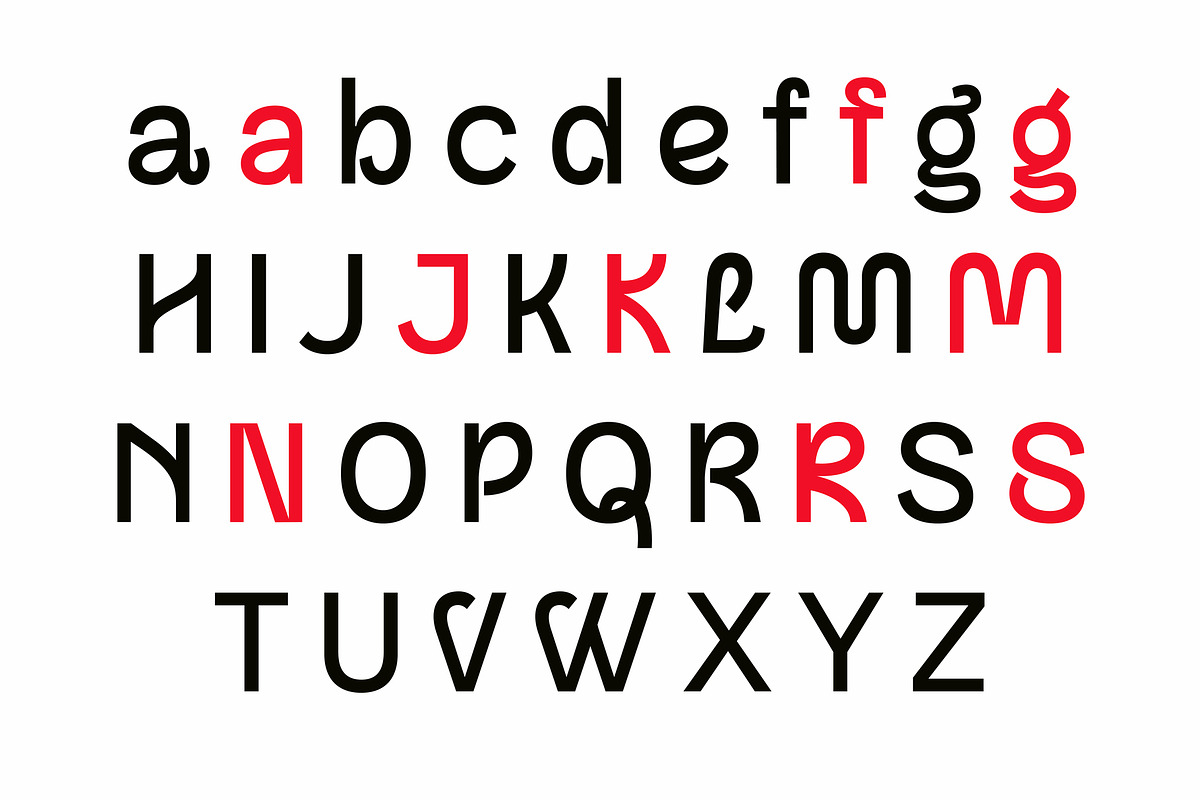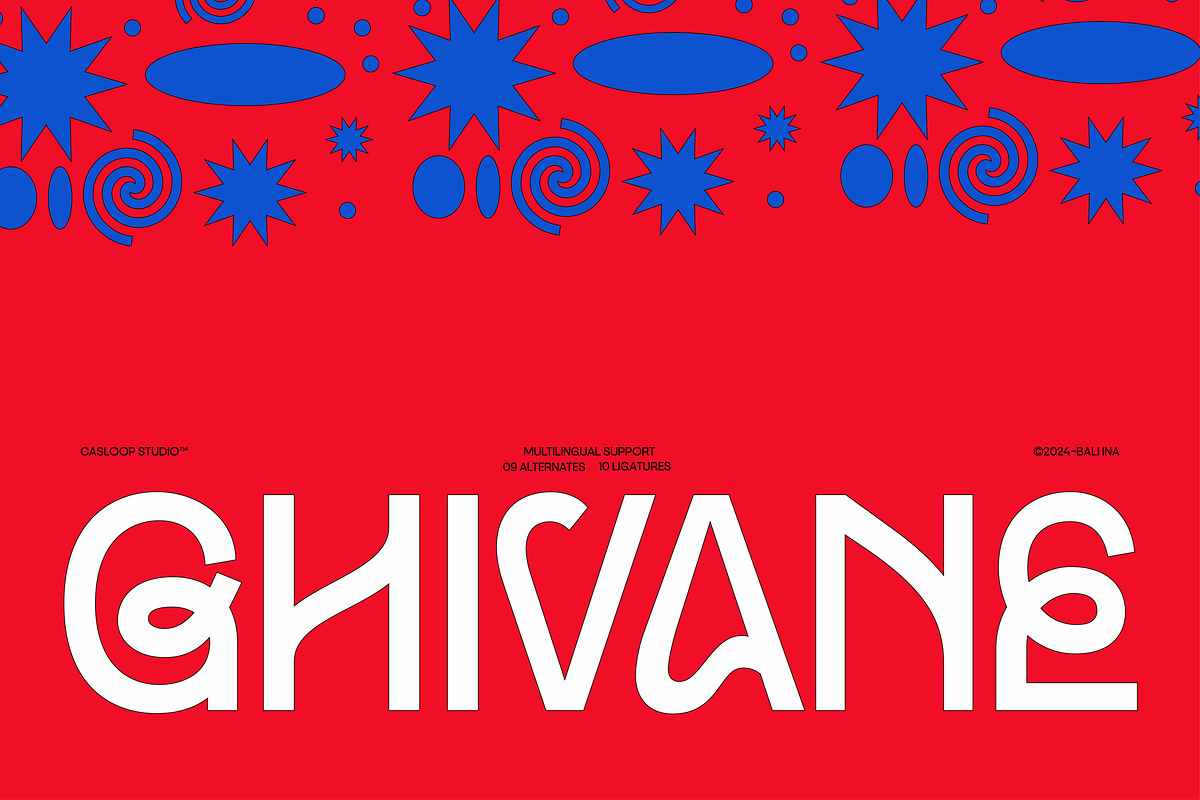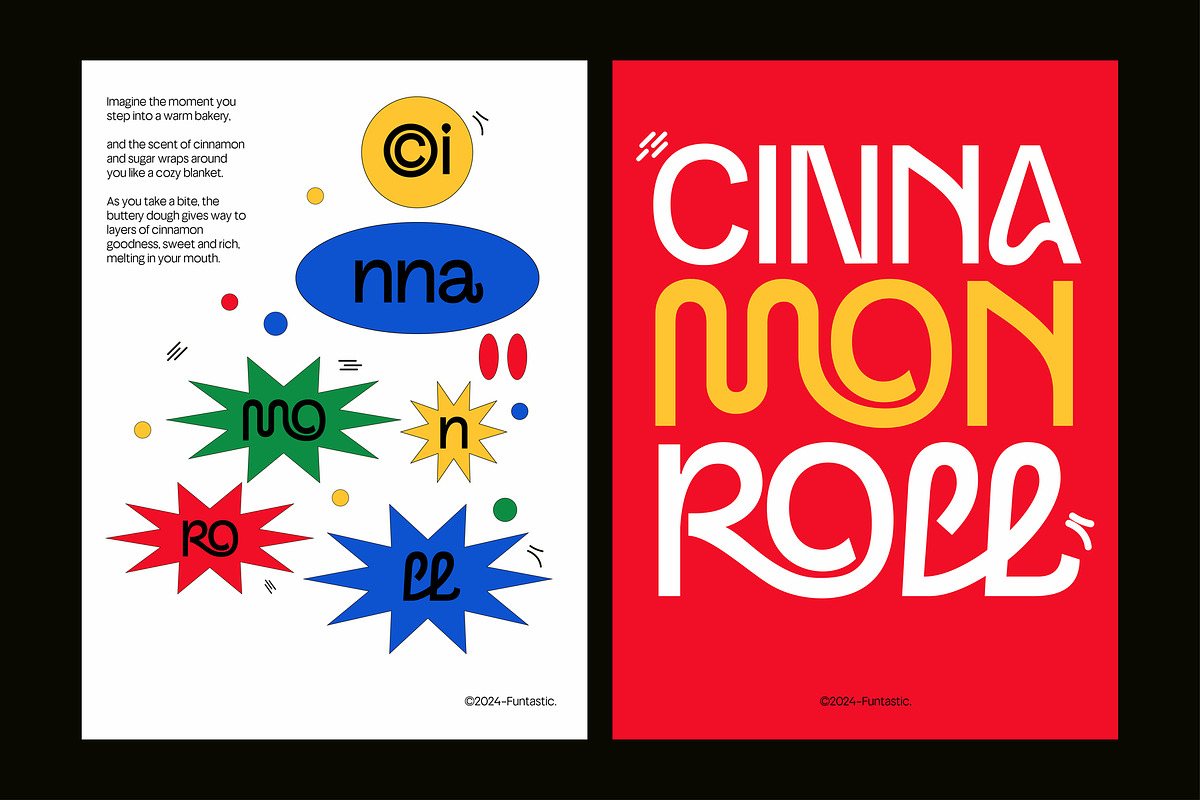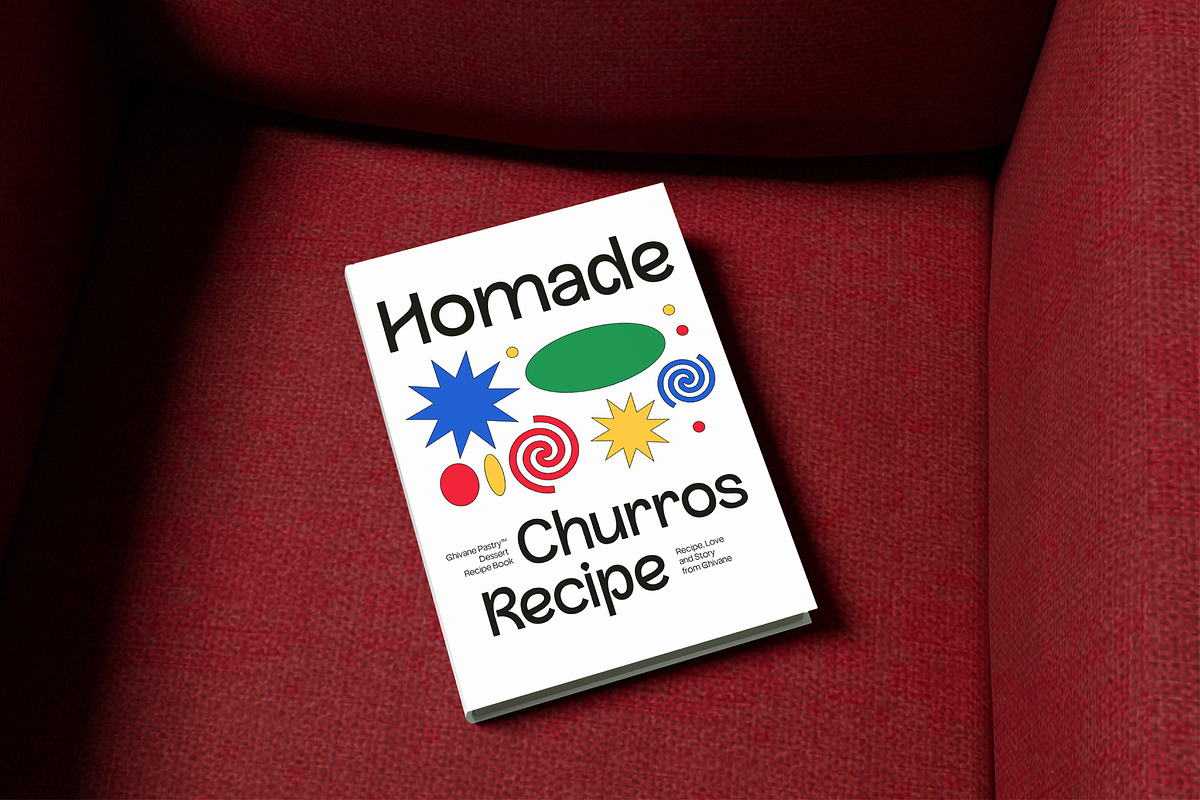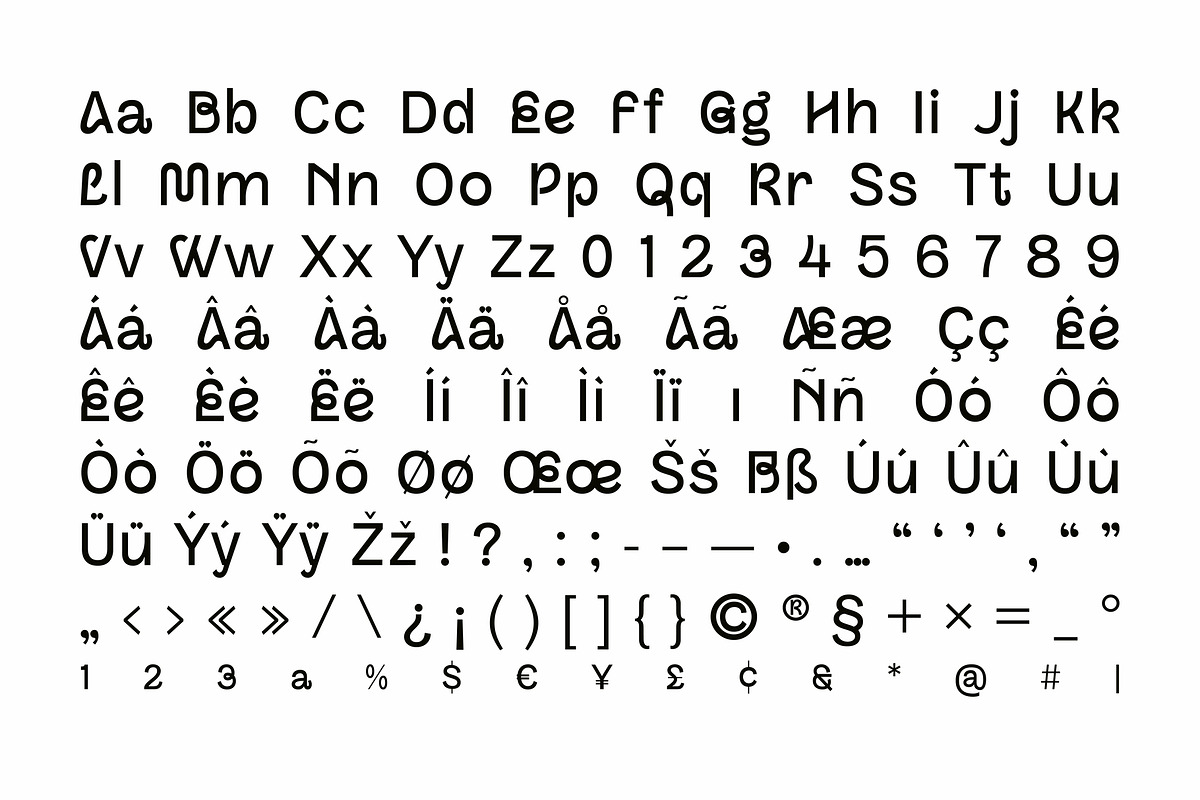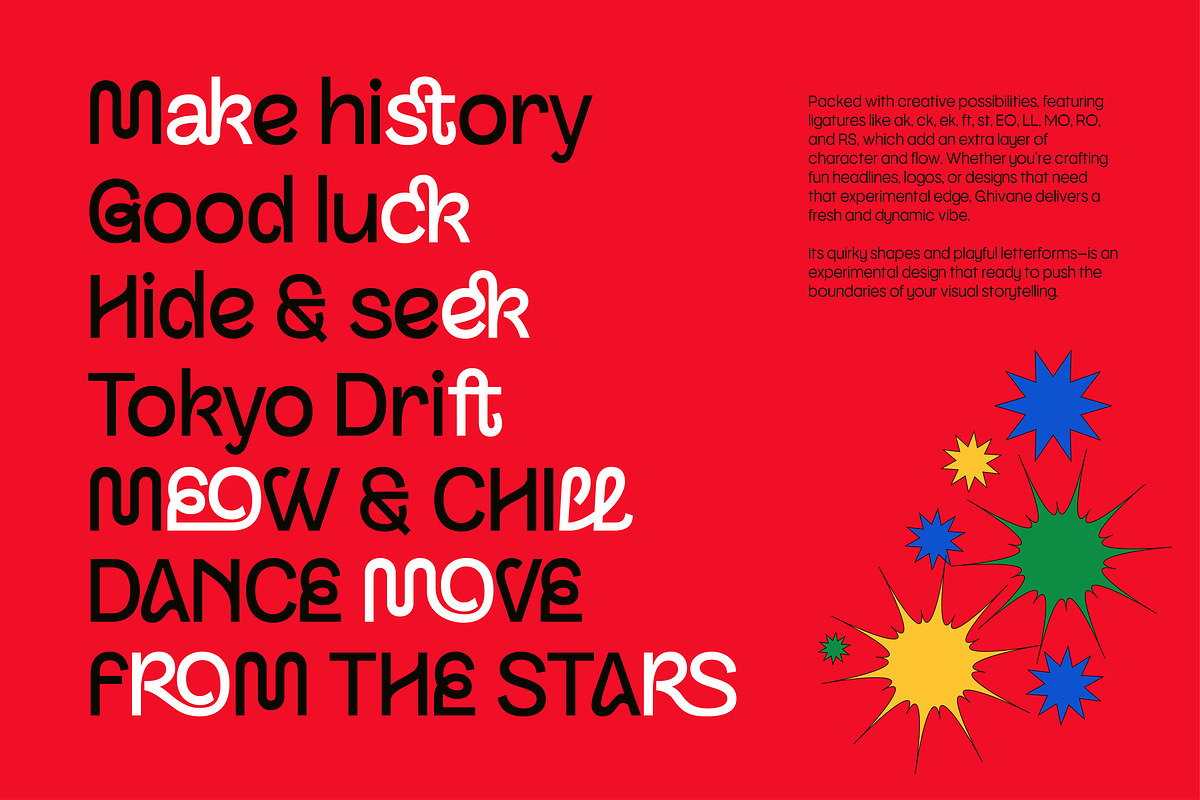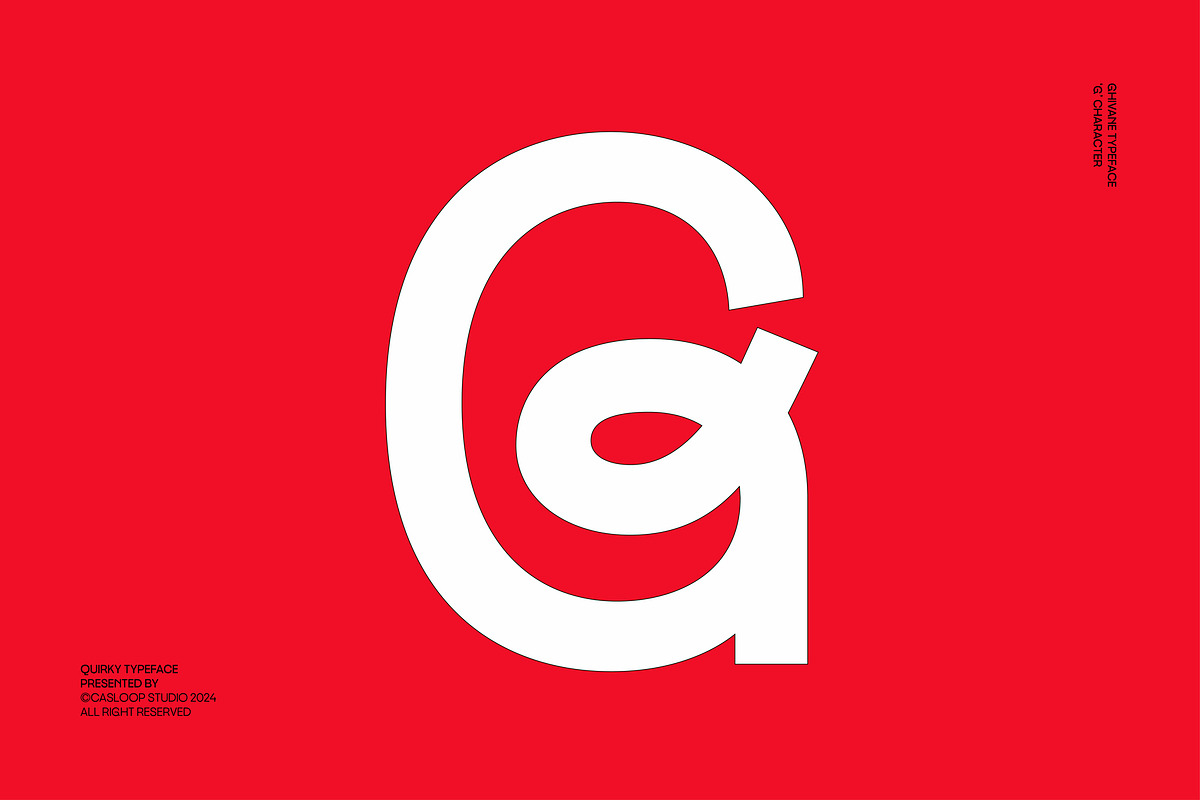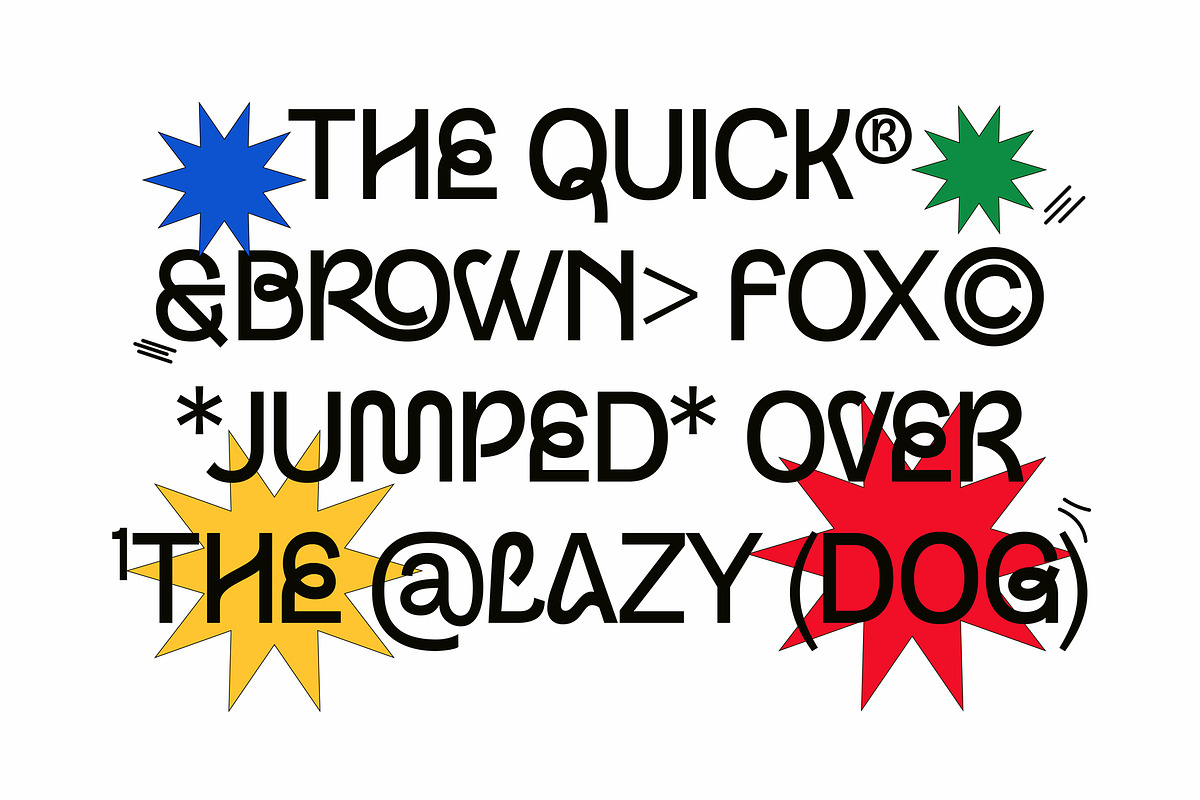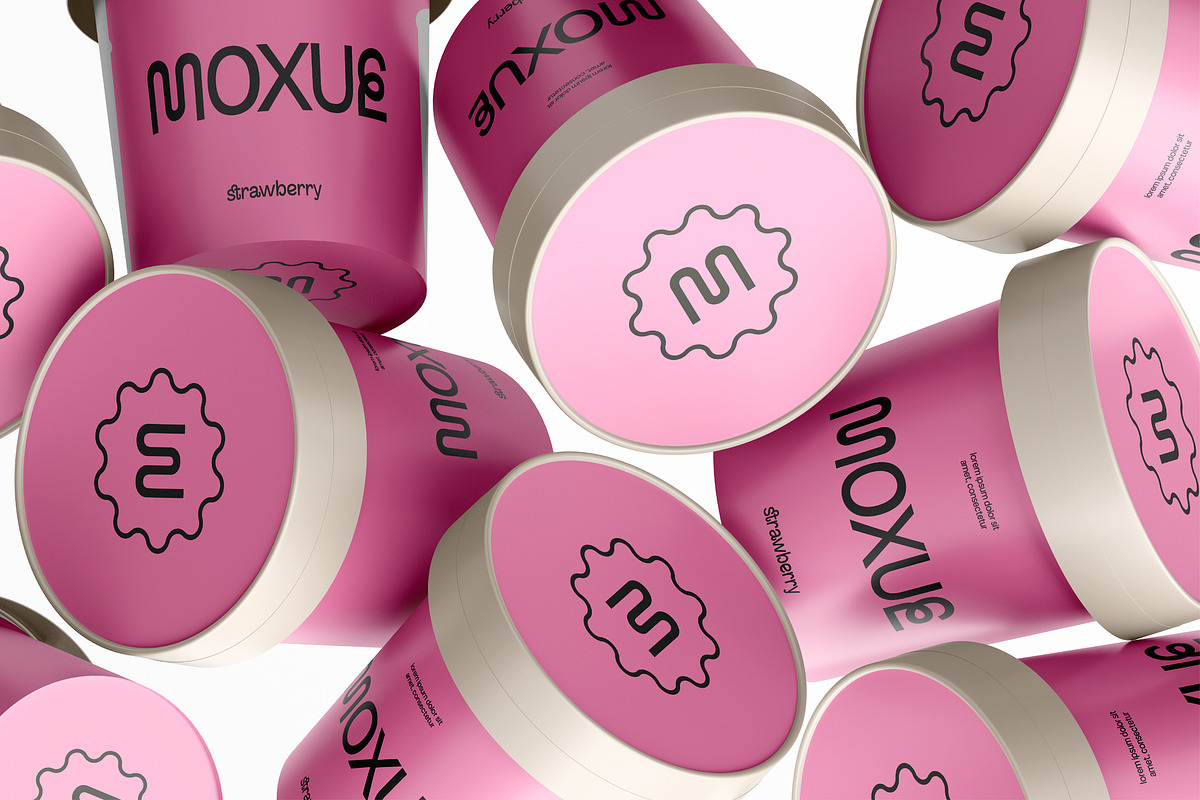
Ghivane - Quirky Trendy Logo Font
Ghivane: The Typeface That Defines Minimalist Charm and Playful Sophistication
Meet Ghivane – a minimalist and unique typeface that merges the clean structure of Sans Serif with the flowing gestures of script design. Its sleek, edgy, and decorative style makes it the ultimate choice for designers looking to create designs that are both trendy and charming. Whether you're designing for corporate identity, branding, or editorials, Ghivane ensures your work will stand out effortlessly.
Ghivane’s monolinear design combines smooth curves, playful loops, and meandering tails, offering a blend of loopy Sans flexibility and script-inspired flair. The flickers and bends at its intersections give it a casual yet attractive vibe, perfect for hipster branding and modern aesthetics. Ghivane's flowness and curly details bring a unique sense of movement, making it ideal for motion graphics, text animations, and digital media visuals.
Ghivane’s unique combination of Sans Serif structure and script gestures ensures versatility across a variety of uses. From websites and logos to packaging and magazines, its balance of clean precision and decorative charm elevates any project. Whether you're crafting a bold headline, a sophisticated label, or a stylish advertisement, Ghivane adapts effortlessly to your vision while maintaining its trendy edge.
- Playful Loops & Curly Tails: Add energy and whimsy to your designs.
- Smooth, Flowness Curves: Achieve a seamless blend of structure and motion.
- Loopy Sans Flexibility: Perfect for bold branding and creative headlines.
- Multilingual Support: Effortlessly reach a global audience.
- Versatile Use Cases: Ideal for logos, editorial spreads, text animations, and more.
- Merge of Sans Serif and Script Gestures: A unique fusion for a modern, decorative touch.
If you're looking for a typeface that defines hypebeast-level visuals, Ghivane is the perfect choice. With its playful loops, minimalist appeal, and ability to create trendy, attractive designs, Ghivane guarantees that your project will stand out. Whether it's for branding, motion graphics, or corporate identity, Ghivane brings originality and charm to every letter.